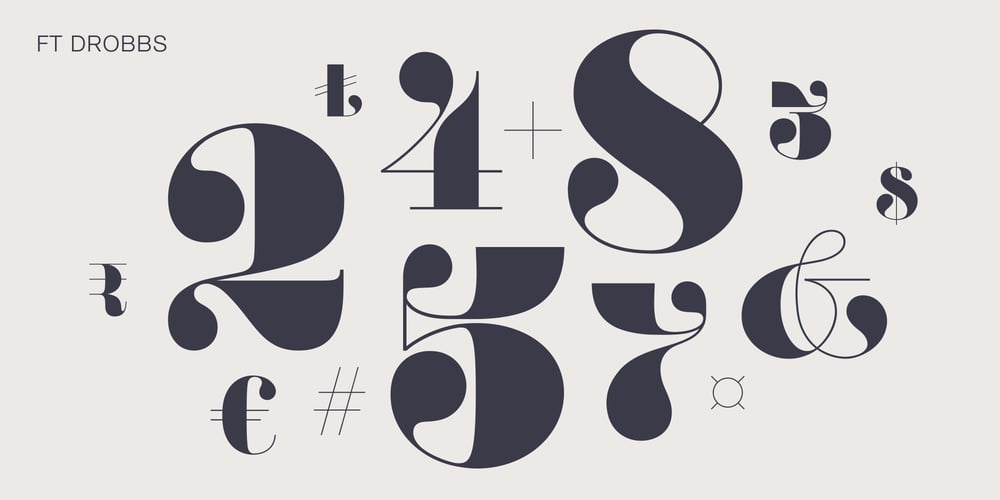
FT Drobbs Font Family was designed by Daniil Zdorov and published by Foxys Forest Foundry. FT Drobbs contains 1 styles and family package options. FT Drobbs is inspired by the Didot font group, known for its neoclassical style reminiscent of the Age of Enlightenment. The font includes a combination of very narrow and very wide lines.FT Drobbs features increased contrast between wide and narrow lines and includes rich teardrop endings. I love to watch how the lines bend, how they move, expanding or going into the thickness of the hair. I love their graceful beauty.FT Drobbs is not alphabetic, but it contains numbers, a set of basic currency symbols, and a few typographic characters. It is suitable for use as accents in labels, posters and infographics.